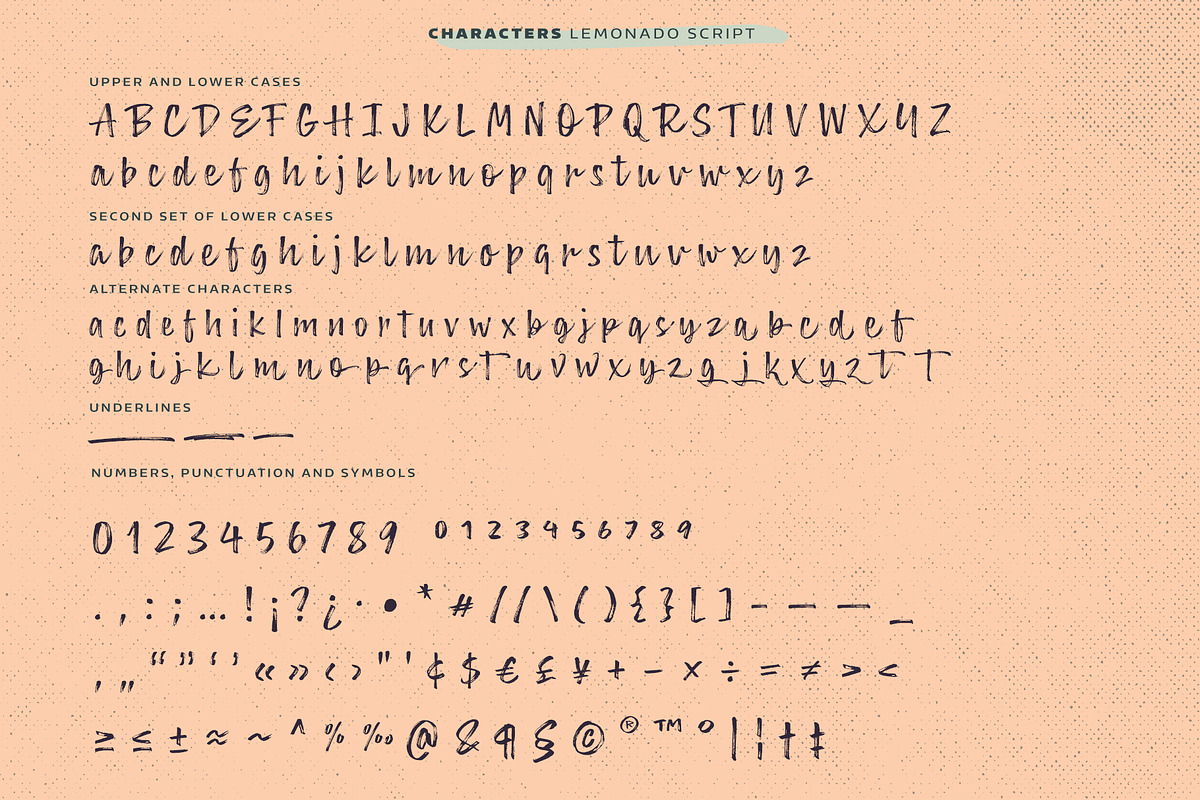
Lemonado
Lemonado is playful and slightly bouncing connecting script. It includes two sets of lower cases to increase the hand writing effect. By enabling Contextual Alternates from OpenType panel you can cycle these two sets and achieve variation.
Lemonado Script also includes set of lowercases without connecting stroke, you can use those in the middle of words or automatically add them at the end of words by enabling Stylistic Set 1 at the OpenType panel. There are also set of lower cases with end swashes, you can automatically add these swashes to end of words by enabling Stylistic Set 2 at the OpenType panel. Also other alternate characters and underlines are included to give you even more possibilities to play with.